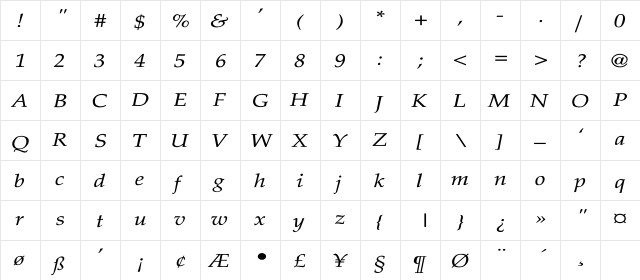
Palatino-Thin-Italic Wd Regular
Design Context for Palatino-Thin-Italic Wd Typeface
Palatino-Thin-Italic Wd offers clean, dependable letterforms without strong stylistic allegiance, making it a practical choice for designers who need flexibility. Its italic angle brings a sense of urgency and motion to the letterforms. Its slender proportions lend an understated elegance to any composition.
Pro Tip: Try Palatino-Thin-Italic Wd for annotation and caption copy alongside an upright companion — the contrast in angle creates a dynamic but ordered typographic system.